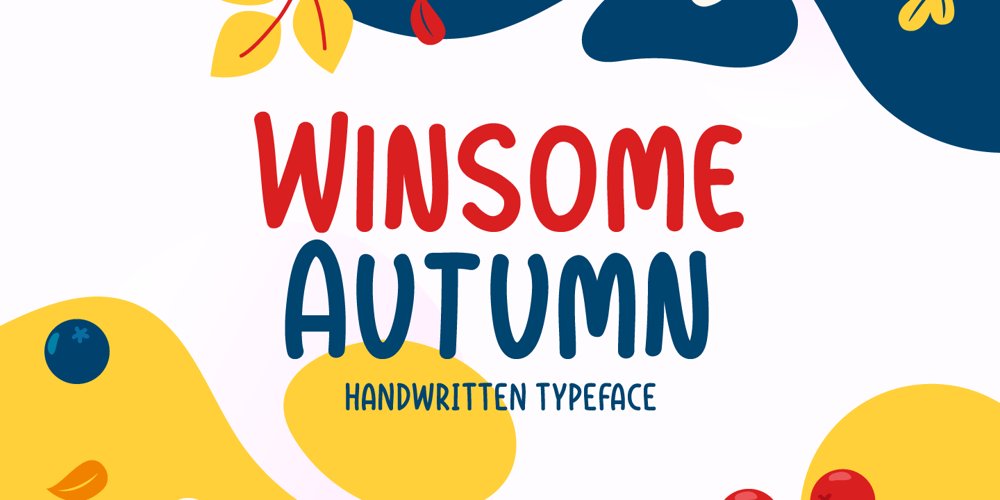
Winsome Autumn Font Family was designed by Md Shohail Bhuian and published by Seemly Fonts. Winsome Autumn contains 1 styles and family package options. Winsome Autumn is a cute and quirky handwritten font. Add it to each of your party invitations, gathering, or pretty much any design that requires a touch of youth and joy.